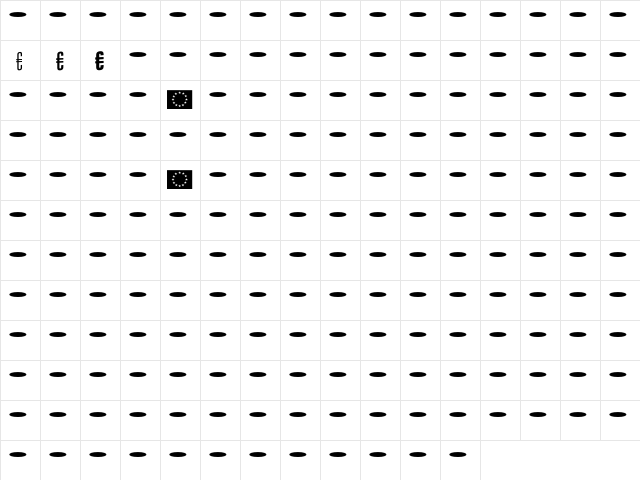
LanceCondensed Euro
Design Context for LanceCondensed Typeface
LanceCondensed is a composed and adaptable typeface that performs quietly and consistently across a wide range of design contexts. The condensed width makes it efficient for tight spaces without sacrificing legibility.